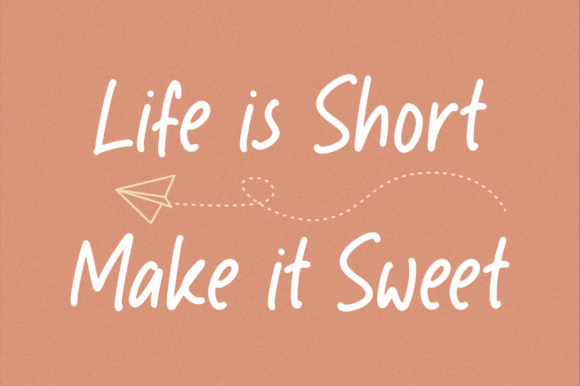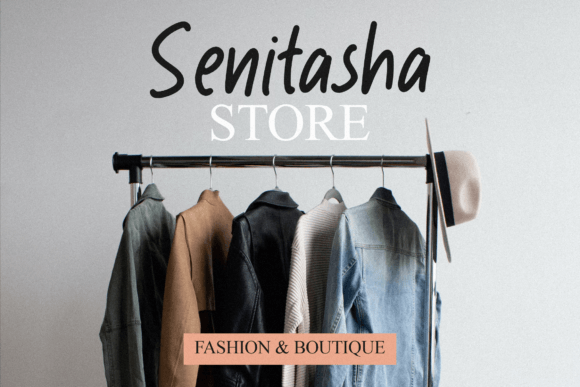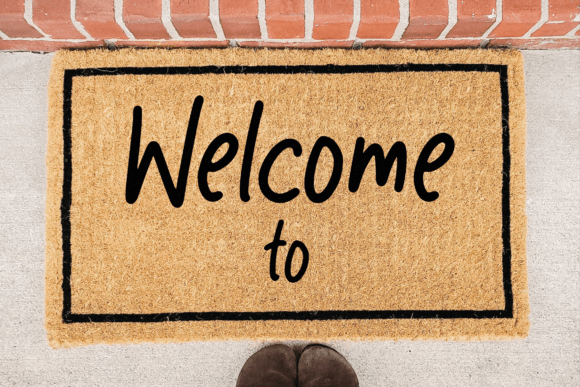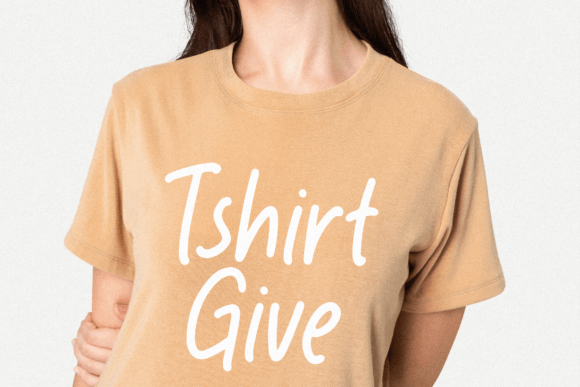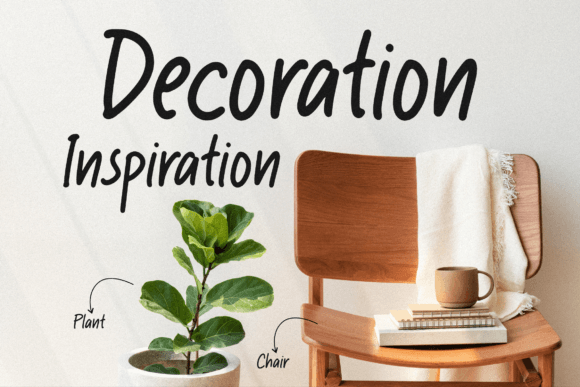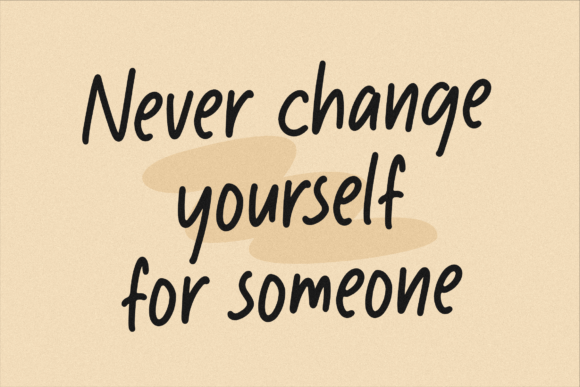
The Andsparkle Font: A Beautiful Script for Creative Projects
Have you ever been working on a design project, and suddenly, you’re stuck on finding the perfect font? I recall a recent experience where I was tasked with creating a logo for a boutique brand. The client wanted a font that was elegant, yet playful, and I was determined to find it. That’s when I stumbled upon the Andsparkle font from Perspectype Studio. In this article, I’ll share my experience with this beautiful script font and how you can use it in your creative projects.
A Personal Review of Andsparkle Font
- ✨ Elegant and natural handwritten style
- ✅ Highly versatile and suitable for various projects, including logos, branding, homeware designs, and more
- ✅ Beautiful OpenType features, glyphs, and stylistic alternates
- ✅ Easy to read and works well in both digital and print formats
- ⚠️ Some users may find the font a bit too script-heavy for certain projects
- 🤔 Limited availability of bold or heavy weights, which may not be suitable for all designs
The Story Behind Andsparkle Font
The Andsparkle font was designed by Perspectype Studio, a team of creatives passionate about typography. According to their story, they aimed to create a font that was both elegant and approachable, suitable for a wide range of creative projects. The result is a beautiful, natural handwritten font that adds a touch of sophistication to any design.
Q: What type of projects is Andsparkle font suitable for?
A: Andsparkle font is versatile and suitable for various projects, including logos, branding, homeware designs, product packaging, mugs, quotes, posters, shopping bags, t-shirts, book covers, name cards, invitation cards, greeting cards, labels, photography, watermarks, and special events.
Q: Does Andsparkle font come with OpenType features?
A: Yes, Andsparkle font includes OpenType features, glyphs, and stylistic alternates, which can be accessed in compatible design software.